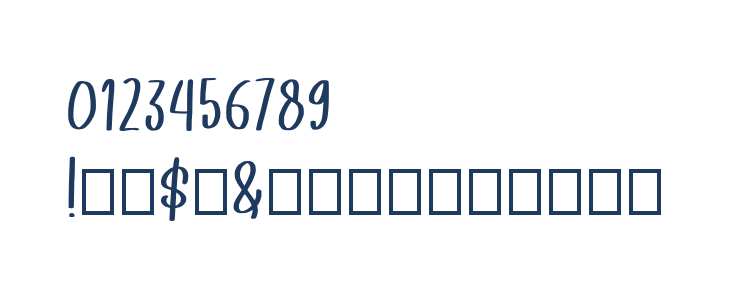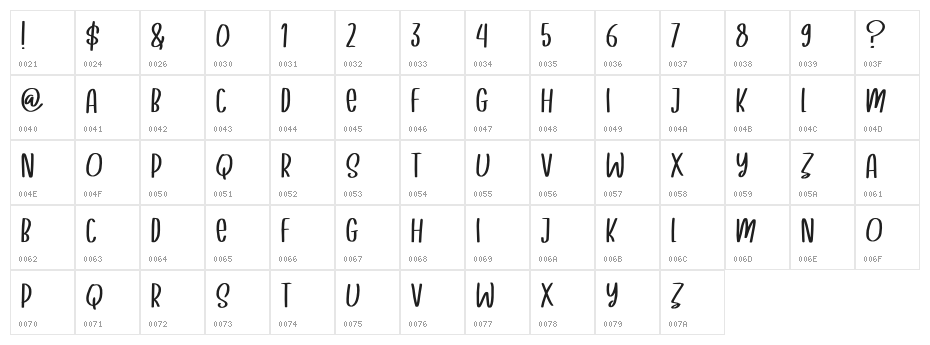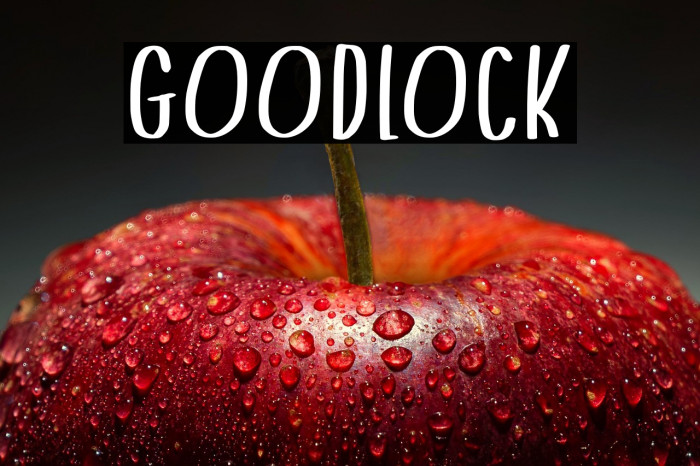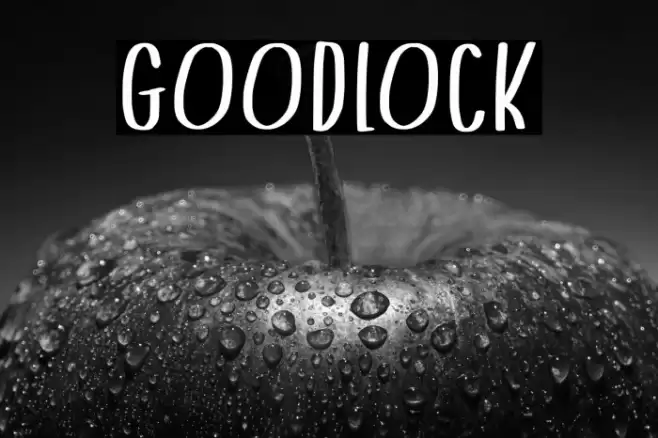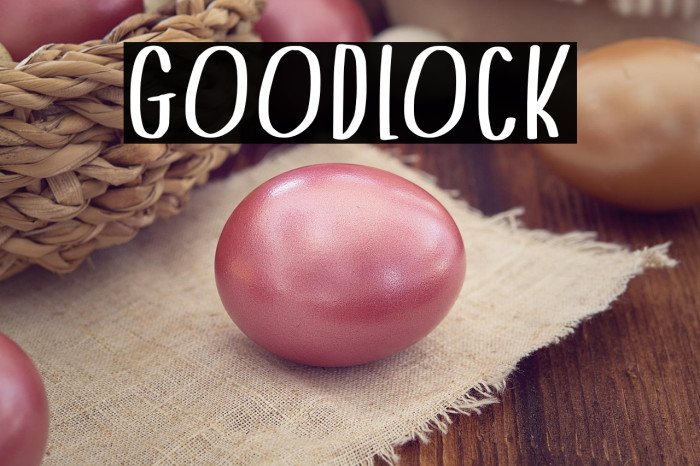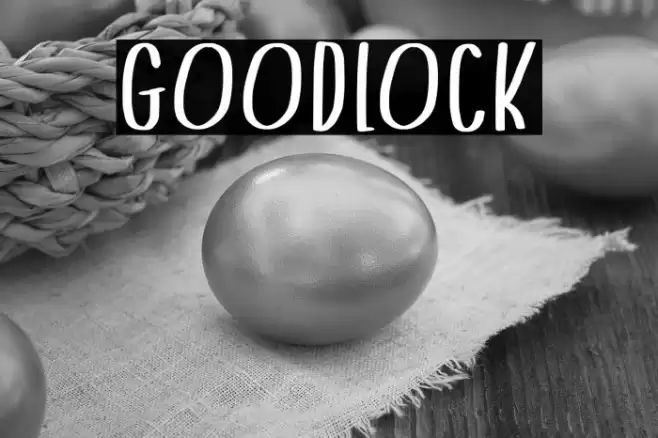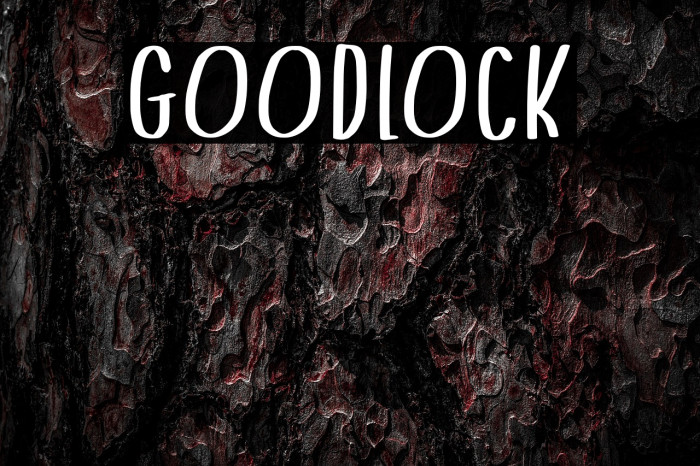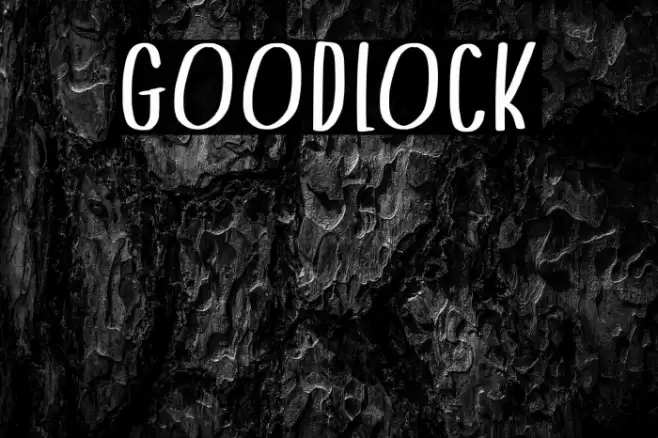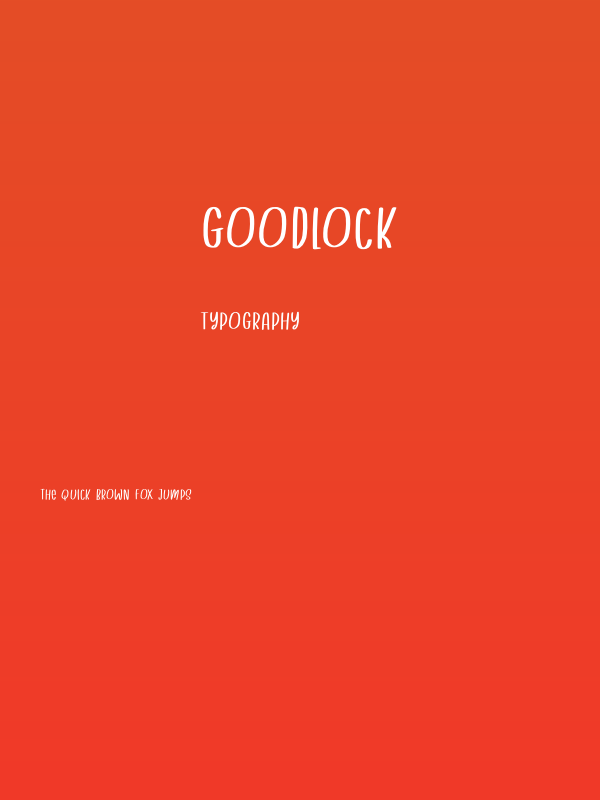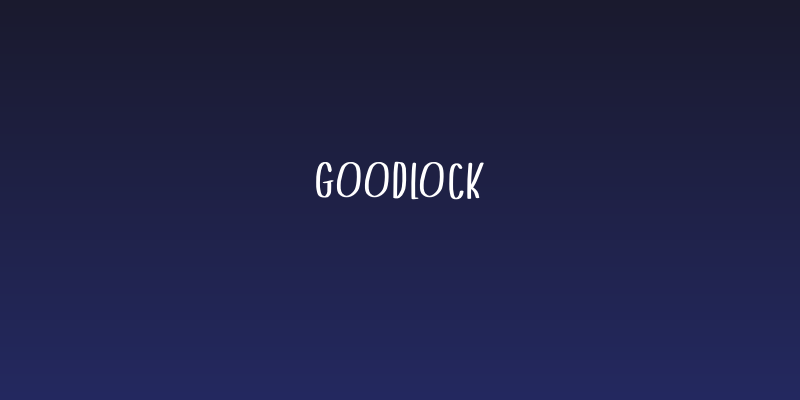
Goodlock Font
Goodlock Description
This font features a playful and casual handwritten style, characterized by its smooth, flowing lines and slightly irregular shapes. The uppercase and lowercase letters maintain a consistent height, giving it a uniform appearance while retaining a touch of whimsy. The numerals are clear and legible, matching the overall aesthetic of the alphabet. Special characters are included, enhancing its versatility for various design needs. The font's informal yet stylish look makes it suitable for creative projects that require a personal touch.
| Use Case | Logos, Headlines, Social Media |
| Proposed Projects | Ideal for greeting cards, invitations, personal branding, and social media graphics. |